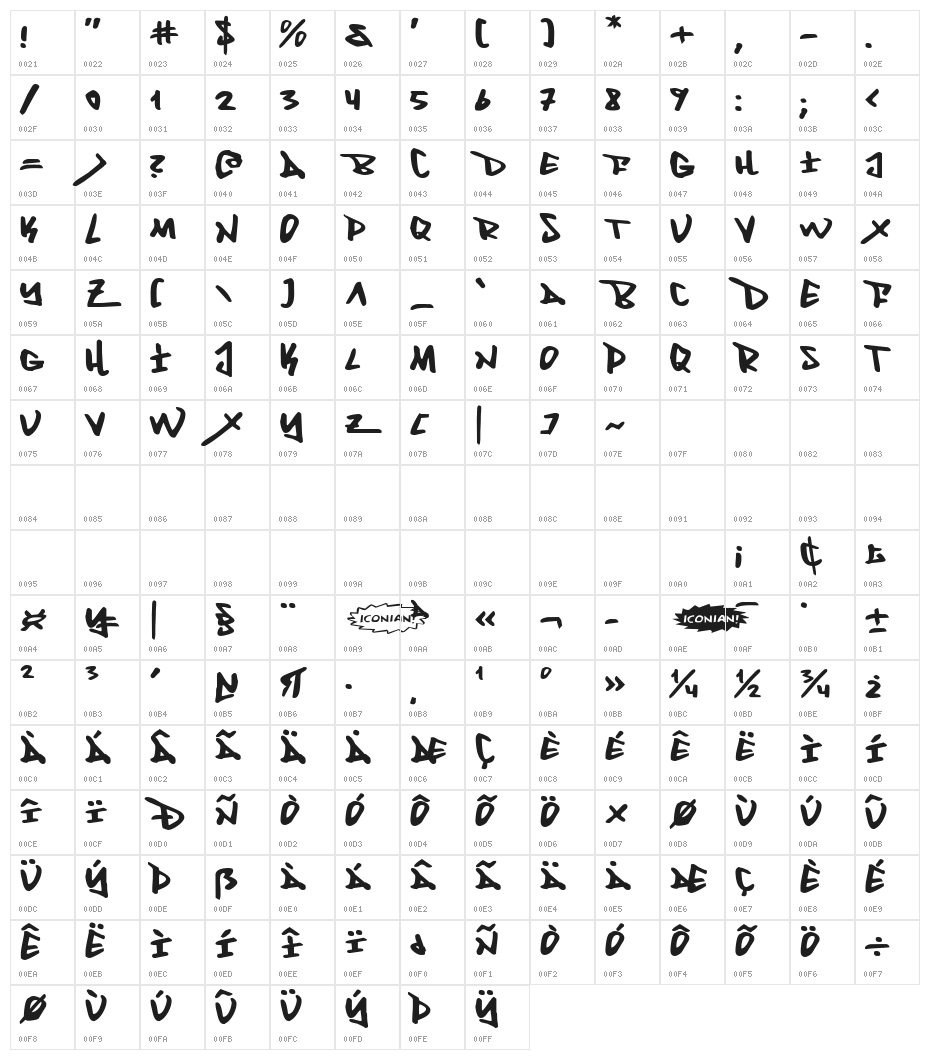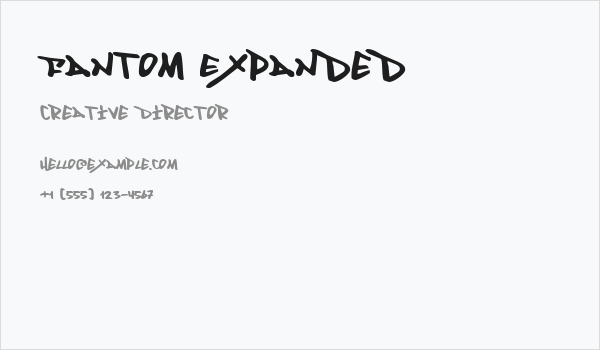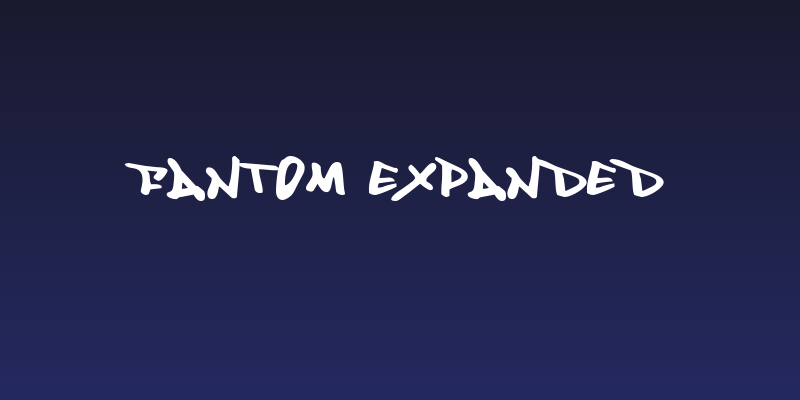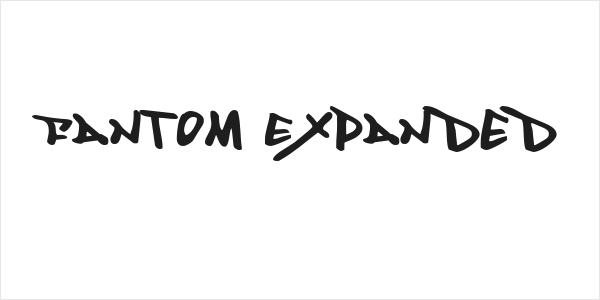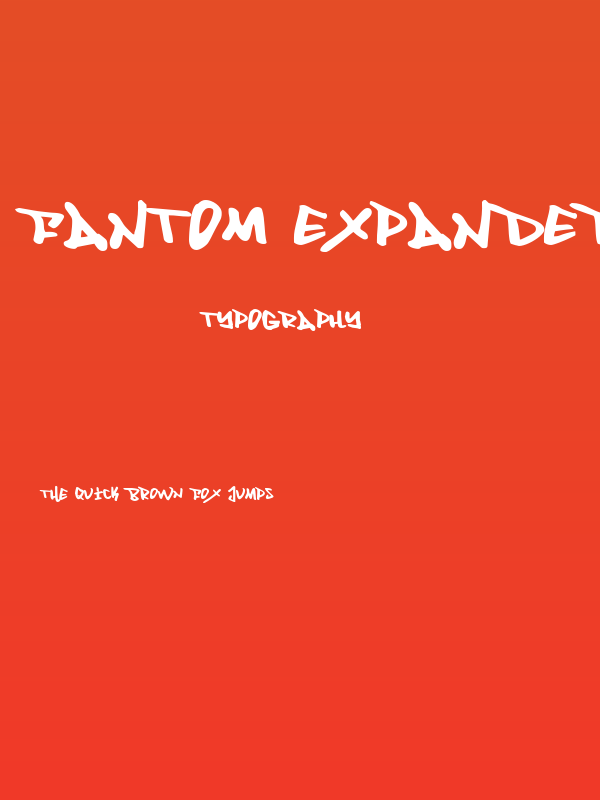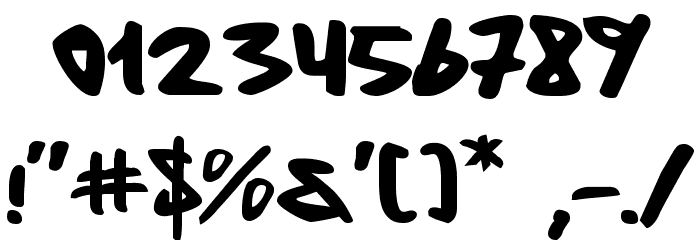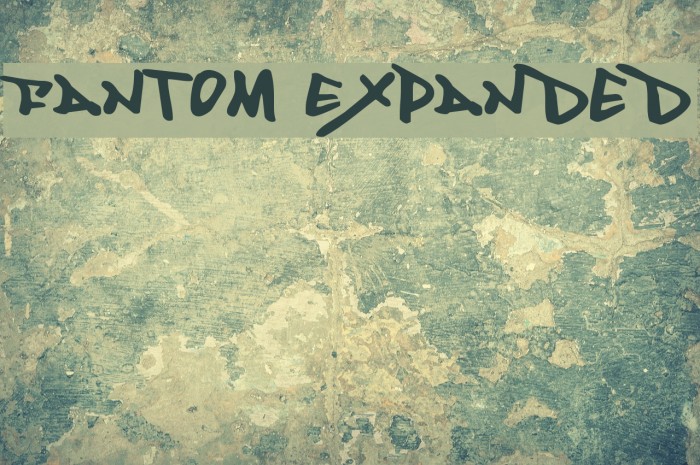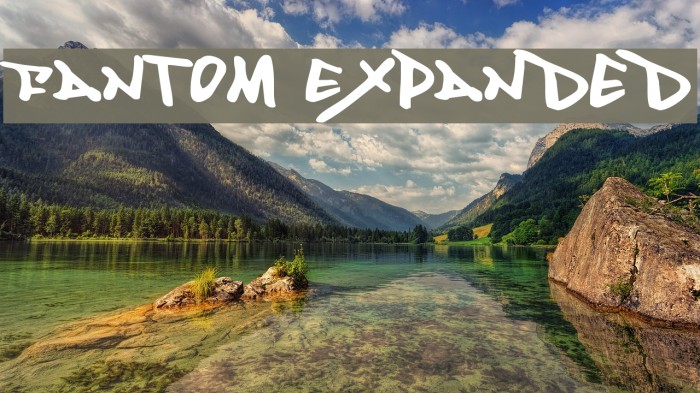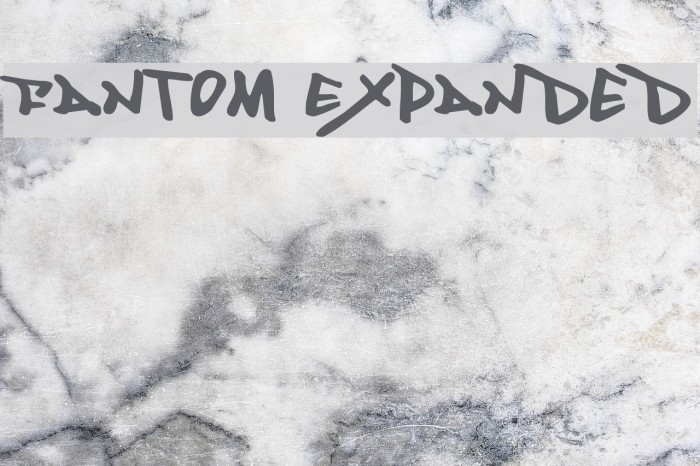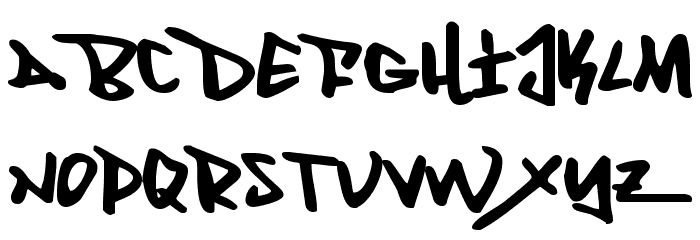
Fantom Expanded Font
Fantom Expanded Description
This font features a bold and expressive style, characterized by its thick strokes and dynamic, handwritten appearance. The letters are slightly slanted, giving a sense of movement and energy. The uppercase and lowercase letters maintain a consistent style, with unique, artistic flourishes that add personality. The numbers are equally bold, ensuring they stand out clearly. Special characters are designed with the same attention to detail, making them an integral part of the font's overall aesthetic. The font's expanded width and tight character spacing contribute to its impactful presence, making it ideal for eye-catching designs.
FANTOM-EXPANDED UPPERCASE
FANTOM-EXPANDED LOWERCASE
FANTOM-EXPANDED OTHER CHARS
| Proposed Projects | This font is perfect for projects that require a strong visual impact, such as posters, branding, and packaging. Its unique style makes it suitable for creative industries, music album covers, and event promotions. |